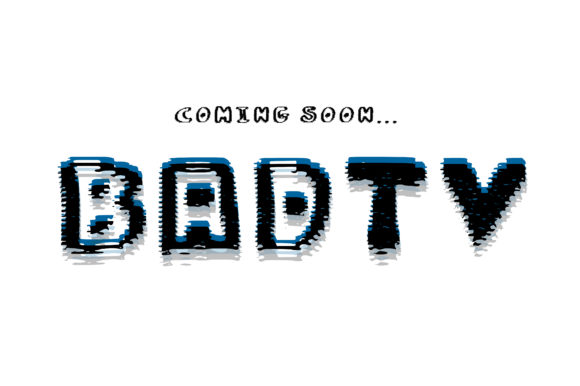
Dive into the mesmerizing realm of Bad TV Font, a display font family that evokes nostalgia with its fuzzy, static-infused aesthetics. Crafted with meticulous attention to detail by the creative minds at GraphicsBam Fonts, this font duo—Regular and Outlined—will transport you back to the golden age of television, where analog signals ruled the airwaves and static was an ever-present companion.
Unleash your creativity and let your imagination soar with Bad TV Font. Its captivating rounded, comic book-inspired design breathes life into your digital designs, transforming mundane text into captivating visual masterpieces. Picture your social media posts, website headers, and marketing materials bursting with a unique, retro charm that captures the hearts and minds of your audience.
Immerse yourself in the world of Bad TV Font and let its idiosyncratic style elevate your designs to new heights. Its fuzzy, static-infused textures add a touch of playfulness and intrigue, making your words dance off the screen with a dynamic energy that demands attention. Embrace the imperfections, the glitches, and the distortion—they are the very essence of Bad TV Font's charm, setting it apart in a sea of ordinary typefaces.
In the realm of design, Bad TV Font reigns supreme as the ultimate choice for projects seeking a distinctive and memorable visual identity. Whether you're crafting eye-catching logos, designing retro-inspired posters, or creating social media graphics with a vintage twist, this font family delivers an unforgettable impact that leaves a lasting impression. Its unique character shines through, adding a touch of whimsy and nostalgia that connects with audiences on a deeper level.